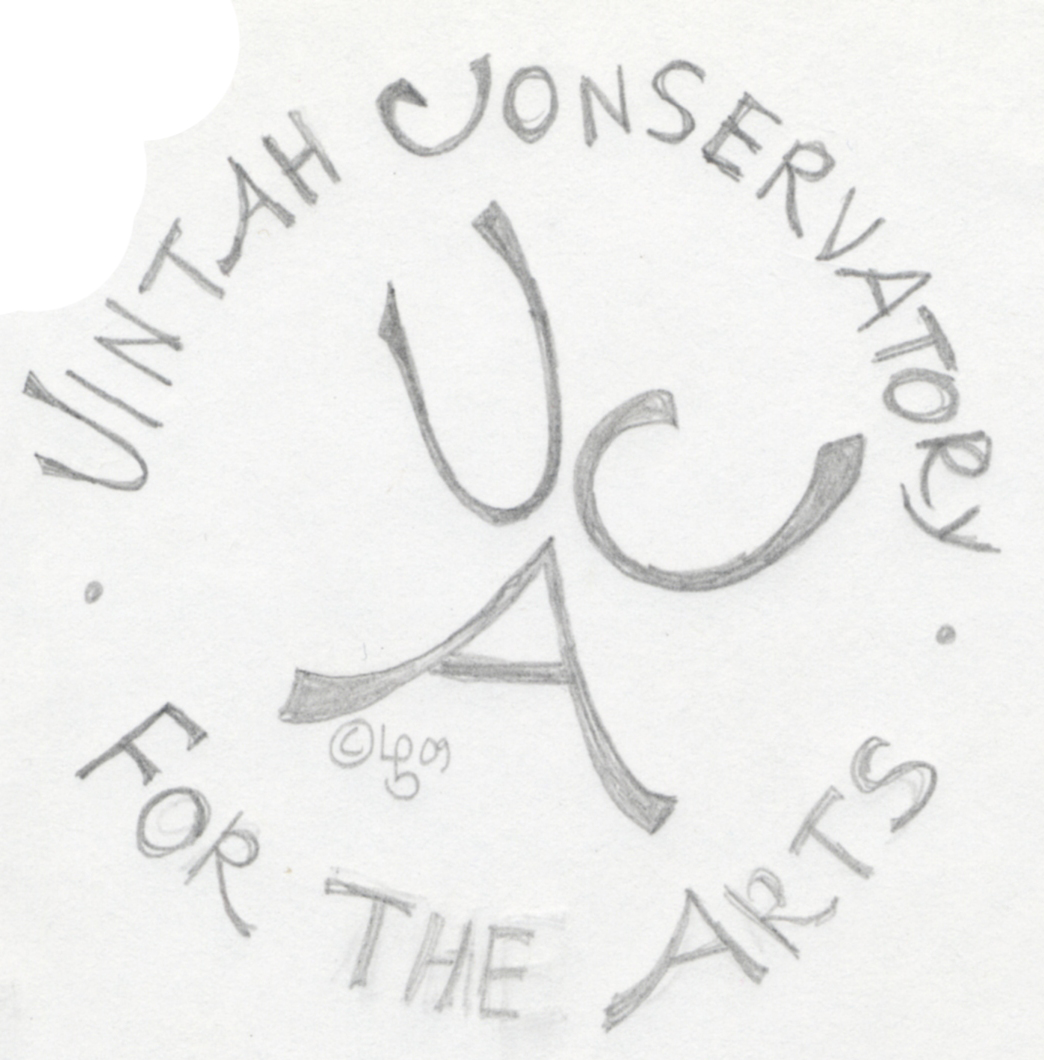
So a customer comes to me and says recreate this. Which I can do, I can trace it in illustrator with the pen tool, but I would rather find a font that is close.
Does anyone know of a font similar to this? My customer drew this freehand so I have nothing to go off of. I have used whatthefont.com and it doesnt give me anything close. Please help!
I would stick it out and trace it with the pen tool or use LiveTrace as has been suggested. It is hand sketched and has a copyright symbol, so stick to the original. Anyway, you would probably spend more time hunting for a font than tracing. The only font anywhere near it on my system is Handwriting-Dakota.